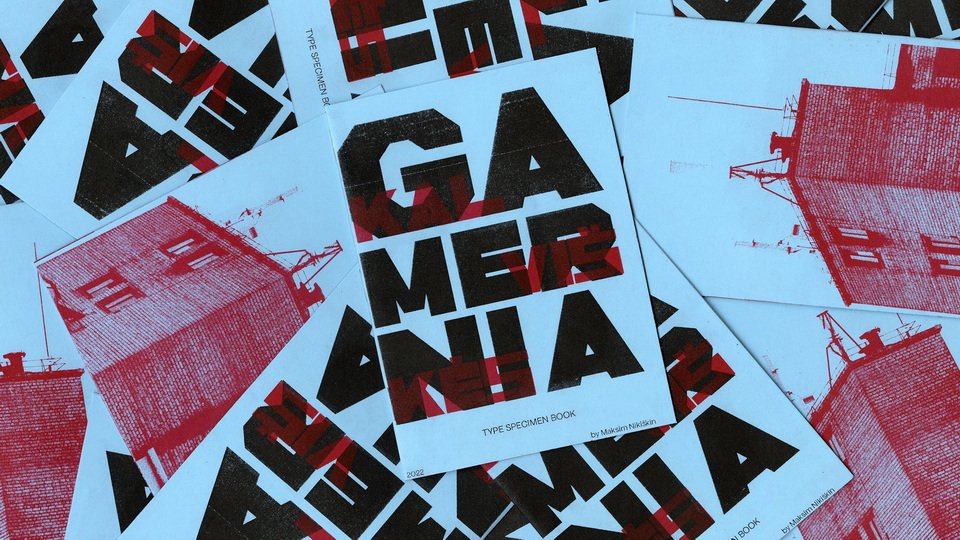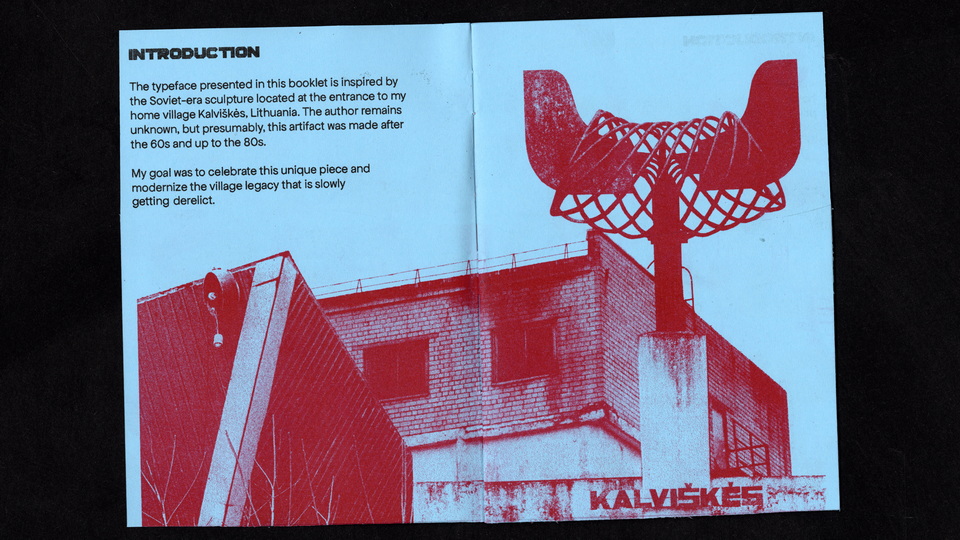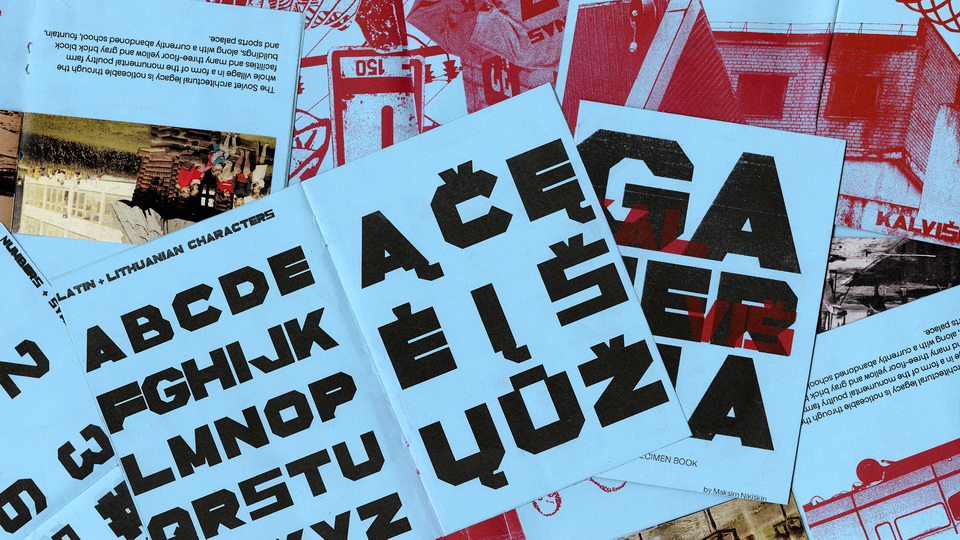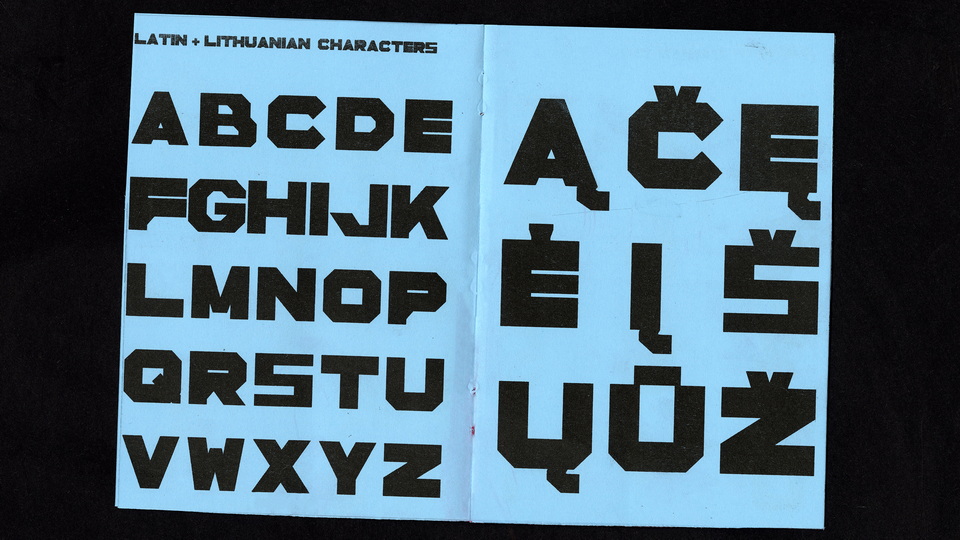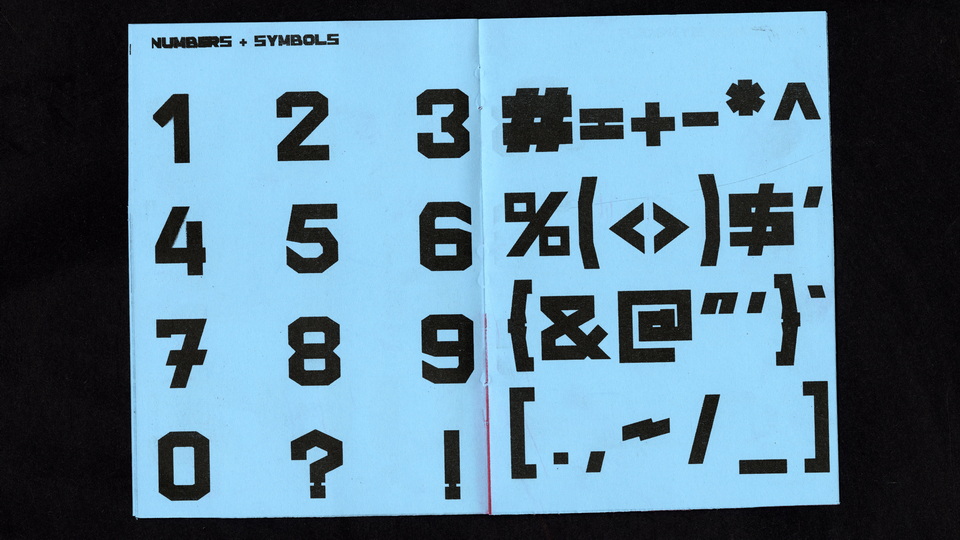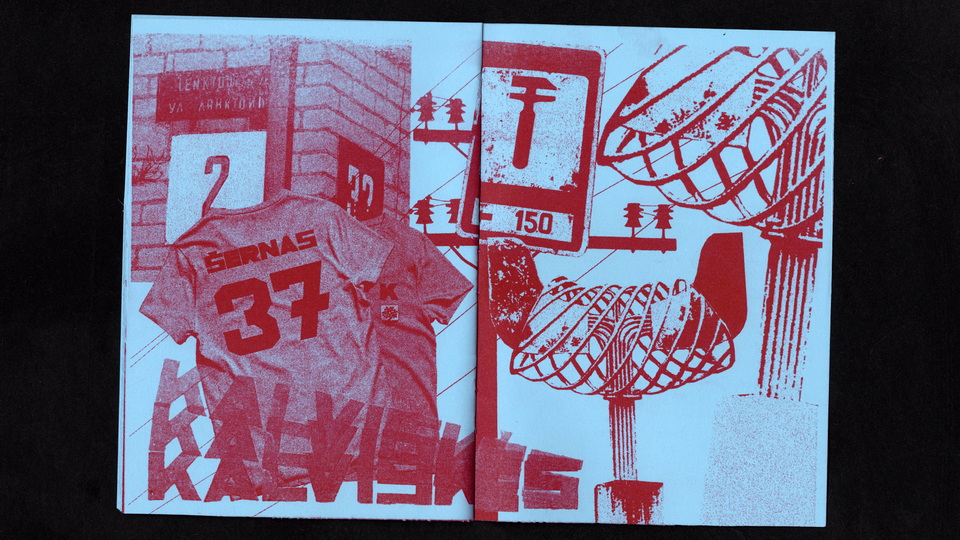
Garmenia is a bold display typeface inspired by the Soviet-era sculpture located at the entrance to the home village Kalviškės, Lithuania. The author remains unknown, but presumably, this artefact was made after 60s and up to 80s. The goal was to celebrate this unique peace and modernize the village legacy that is slowly getting derelict.